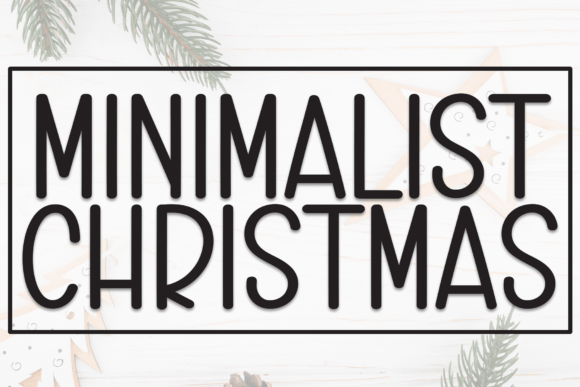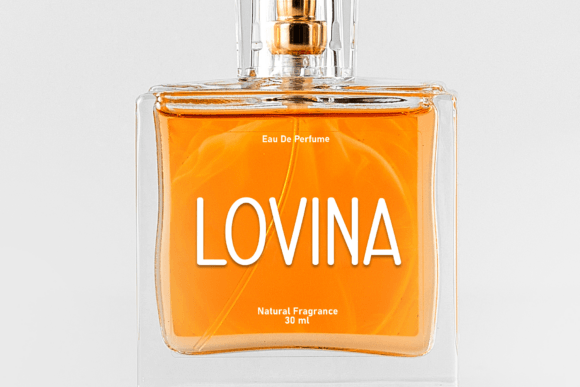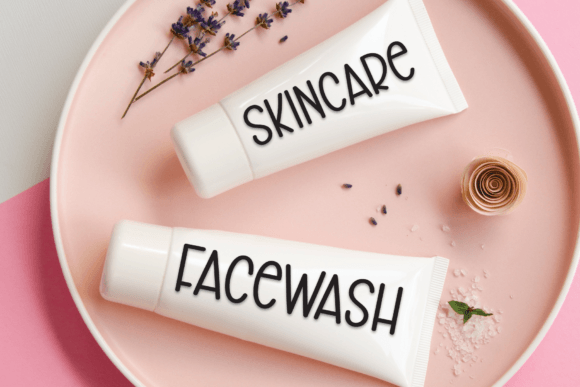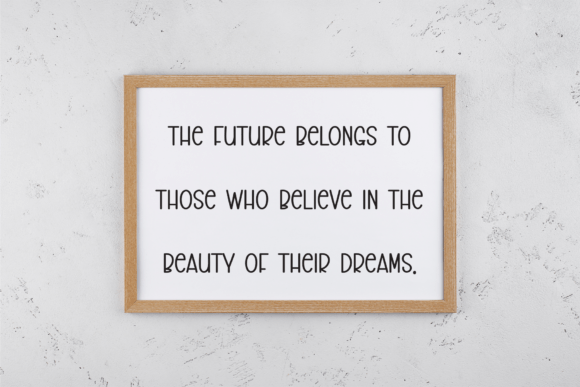
Minimalist Christmas Font Font
About the Minimalist Christmas Font Font
Crafted with precision, the Minimalist Christmas Font Font is ready to bring your ideas to life. Minimalist Christmas is a lovely and timeless handwritten font. It is the best choice for creating eye catching logos, branding and quotes. Every letter has a unique and beautiful touch, which will make your design come alive!
Its elegant, yet slightly informal handwritten style makes it ideal for holiday-themed branding, logos, short quotes, and invitations. It works particularly well in projects requiring a touch of festive charm without being overly whimsical. However, its delicate stroke weight makes it unsuitable for body text or UI elements where high readability is paramount.
Consider pairing Minimalist Christmas with a clean sans-serif like Lato or Open Sans for a balanced contrast, or a more playful script font like Great Vibes for added personality in projects needing a consistent hand-drawn feel. For a sophisticated touch, a thin serif font like Merriweather could also create a refined aesthetic.
The font’s overall personality is best described as charming and sophisticated, conveying a sense of understated elegance and festive cheer. It’s perfect for brands emphasizing quality, craftsmanship, or a refined holiday aesthetic.